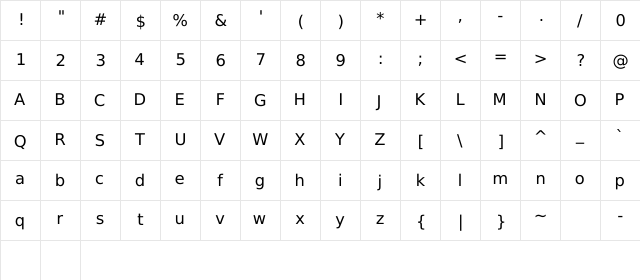
Complete Alvi Lahori Nastaleeq Regular glyph index. Displaying only characters natively supported by Alvi Lahori Nastaleeq Regular font.
Alvi Lahori Nastaleeq is a composed and adaptable typeface that performs quietly and consistently across a wide range of design contexts.